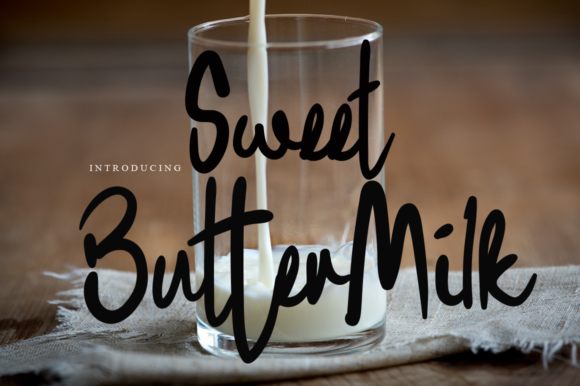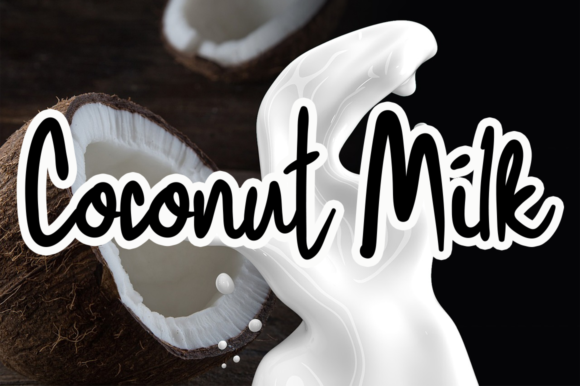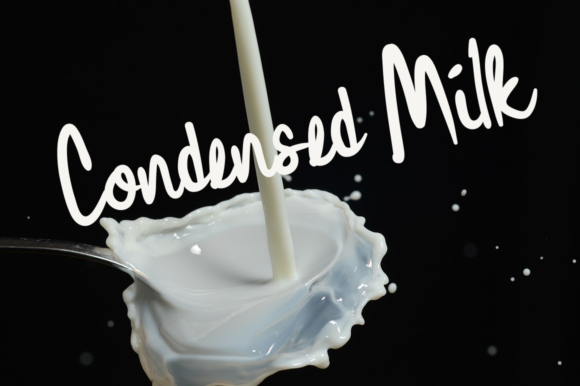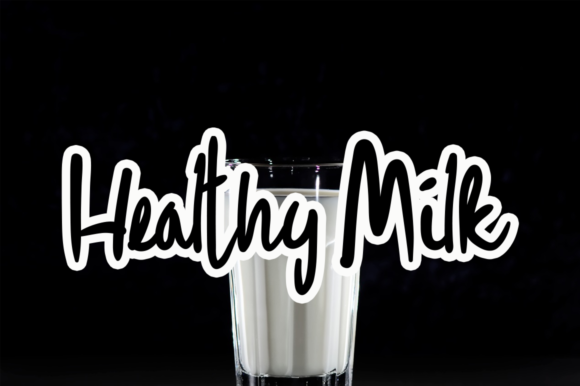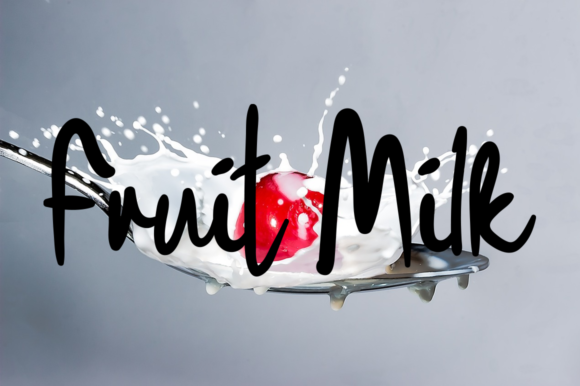
Sweet Buttermilk Font
About Sweet Buttermilk Font
Sweet Buttermilk is a dainty, thin, and cursive handwritten font. This gentle font will look gorgeous on a variety of design ideas. It will add a joyful and romantic touch to each of your projects!